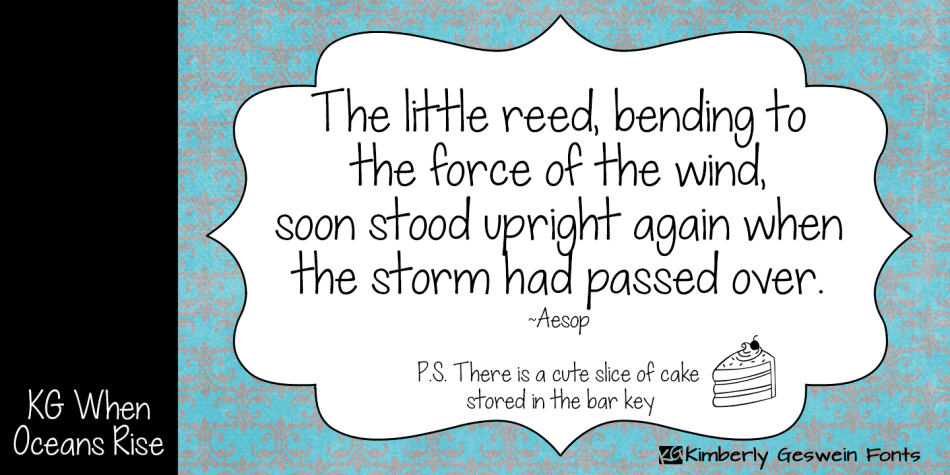
KG When Oceans Rise
KG When Oceans Rise is an upright handwritten font created by Kimberly Geswein in 2014. This light weight sans is playful and kind and easy to read. Each stroke has slight variations to give your design text an authentic handwritten feeling.
Use the vertical bar (|) for a slice of cake!